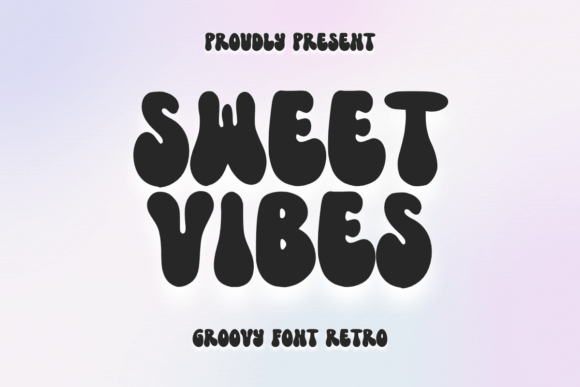
Introducing Sweet Vibes Font, the ultimate choice for those seeking the perfect blend of retro and groovy styles! Created by Masyafi Studio, this display font will transport you back to the nostalgic days of the past while adding a touch of cuteness and adorability to your designs.
With its charming and unique style, Sweet Vibes Font is the perfect companion for a wide range of products. Imagine your favorite quote displayed on a mug, t-shirt, or tote bag, exuding a cool and captivating vibe that will surely catch everyone's attention. Whether you're looking to decorate your space or create eye-catching designs, this font is a must-have.
But what sets Sweet Vibes Font apart from the rest? Its versatility! Not only does it effortlessly capture the essence of retro aesthetics, but it also adds a modern twist, making it suitable for various design projects. From vintage-themed parties to contemporary branding, this font is a game-changer.
Don't be deceived by its nostalgic charm, as Sweet Vibes Font is packed with functionality. Its clean and legible characters ensure that your speaker notes and presentations stand out, making it the best font for speaker notes. Impress your audience with an exceptional visual experience that complements your words seamlessly.
Embrace the power of Sweet Vibes Font and let your creativity soar. Transform ordinary designs into extraordinary ones with this captivating font that sparks emotion and creates a lasting impression. It's time to make a statement, express your personality, and elevate your designs like never before.